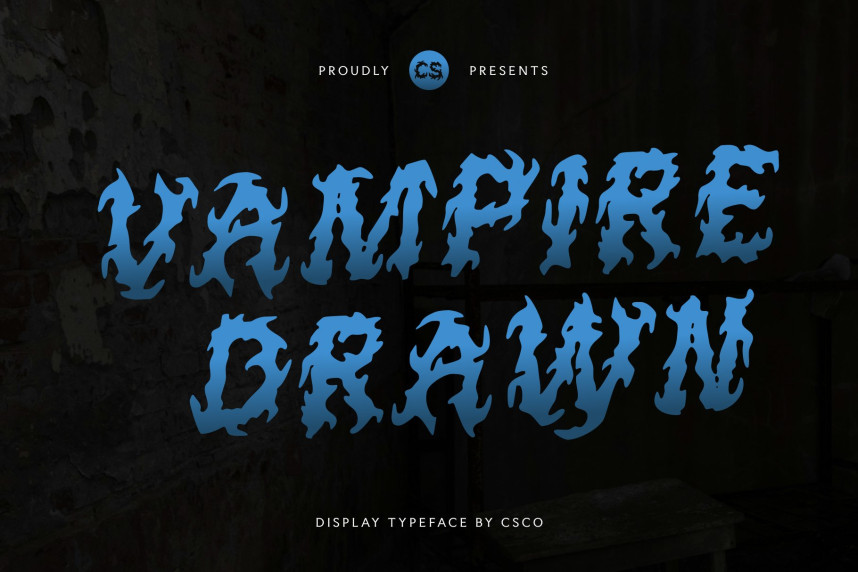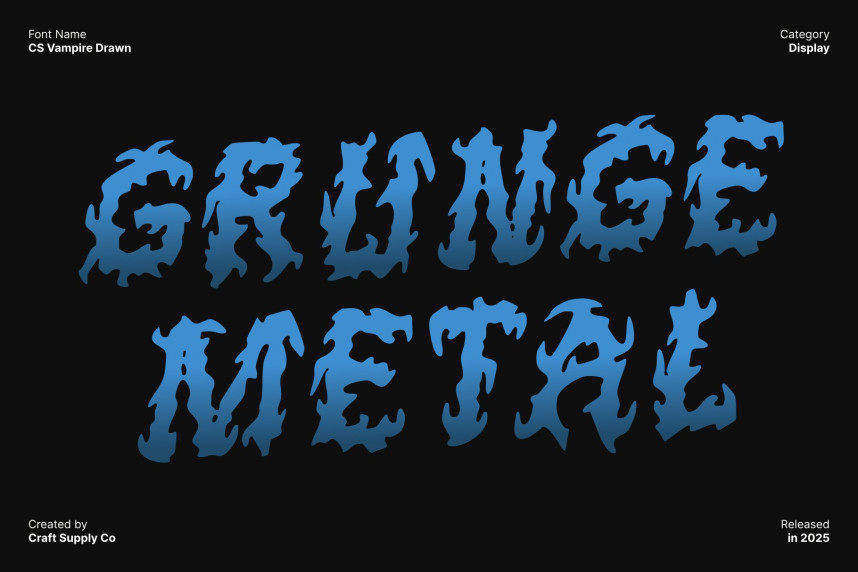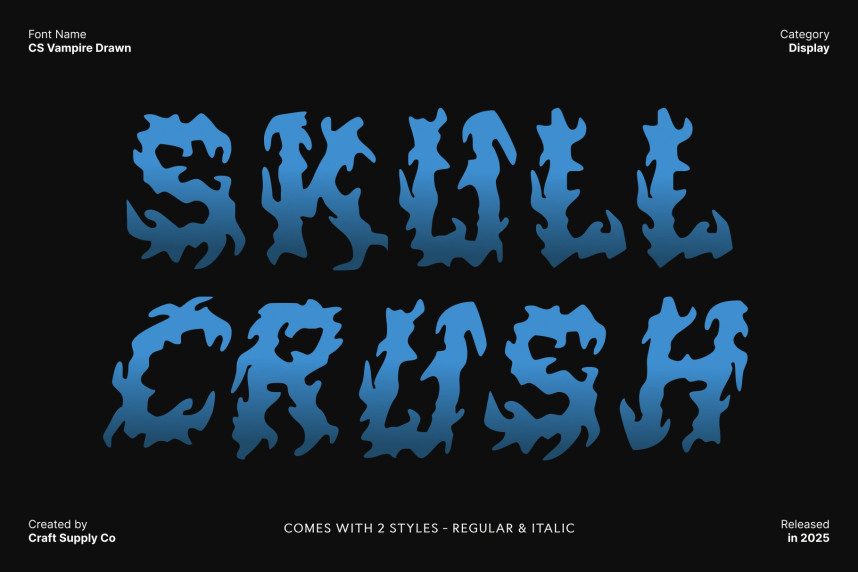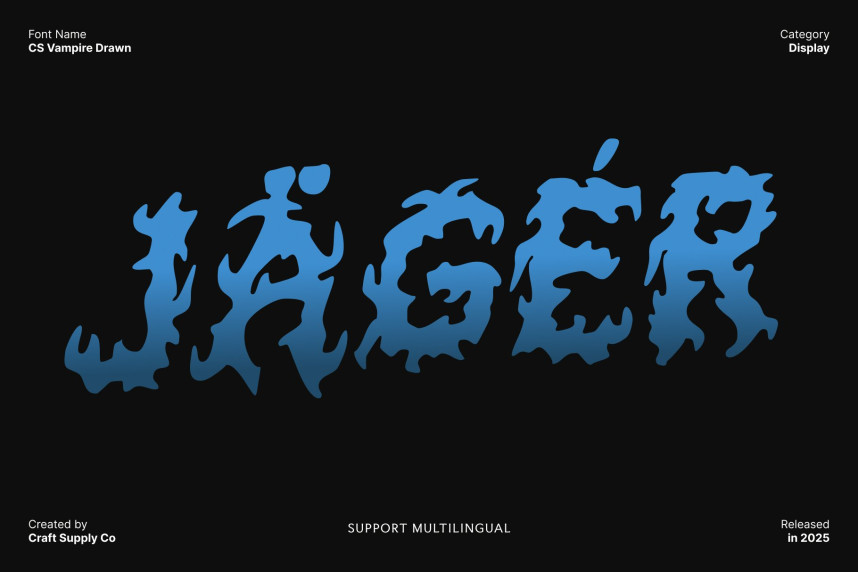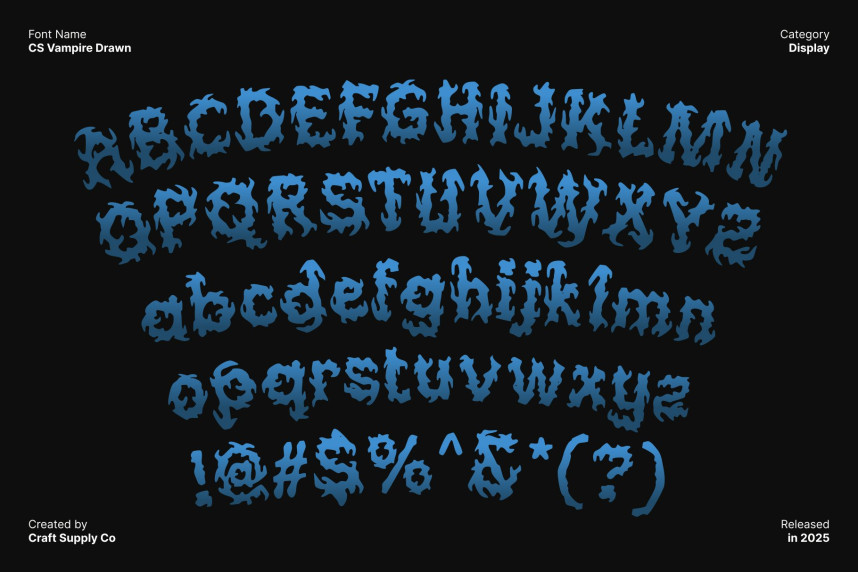
CS Vampire Drawn Font
CS Vampire Drawn Font – Extreme Black Metal Display Font of Pure Chaos Ferocious Letterforms Born from Darkness. This is a black metal display font crafted to embody raw aggression and uncompromising darkness. Jagged spikes, razor-sharp edges, and violently fractured strokes define every letter, creating a hostile and menacing visual presence. The structure feels intentionally unstable and chaotic, echoing the destructive sound and ideology of extreme music.